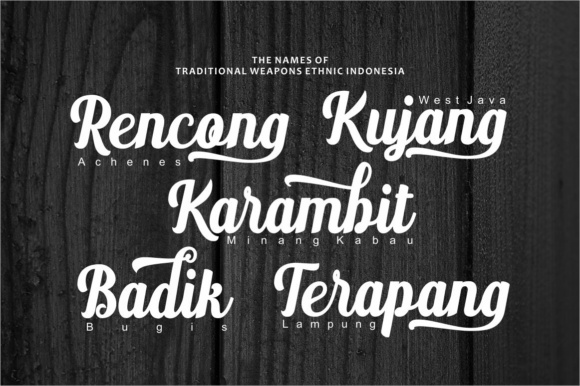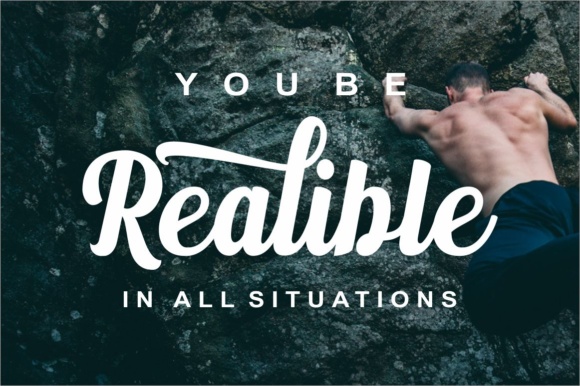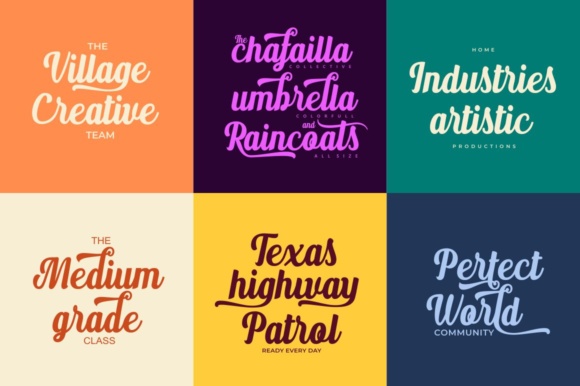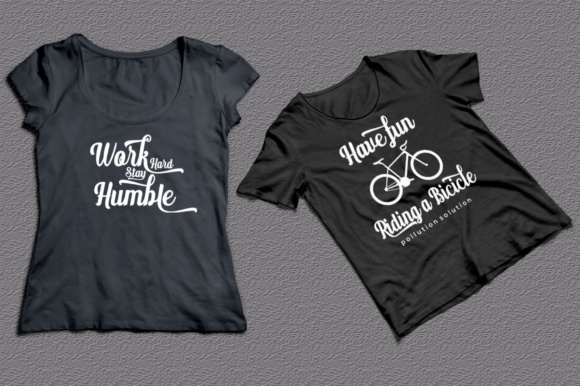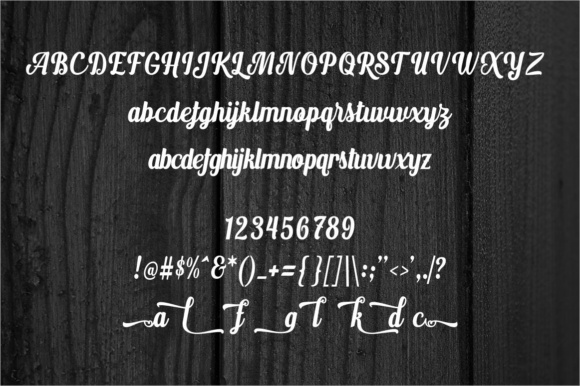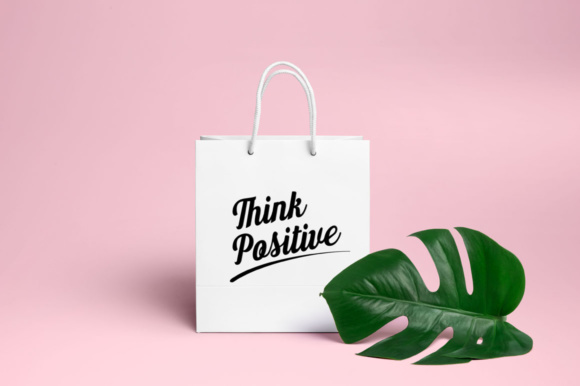
Introduction to Querthy Script Font Font
Fonts play a crucial role in design, and the Querthy Script Font font is a typeface that brings both character and versatility to any project. Whether you’re working on a branding project, a website, or a print design, the Querthy Script Font font offers a unique style that can elevate your work.
Querthy is an brush script font based on the expression of real handwriting.
Querthy lets you transform type into an exciting and beautiful piece of work A hand-lettered look adds a real human touch to things and comes along with a lot of loving details.
Key Features of Querthy Script Font Font
Why Choose Querthy Script Font Font?
The Querthy Script Font font is more than just a typeface – it’s a design tool that helps you communicate your message with style and clarity. Its unique character set and versatile design make it suitable for a wide range of applications, from elegant invitations to bold headlines.
With its carefully crafted letterforms and balanced proportions, the Querthy Script Font font ensures readability and visual appeal across all mediums.
What makes Querthy Script Font font special?
The Querthy Script Font font stands out with its unique design, exceptional readability, and versatility across various design applications.